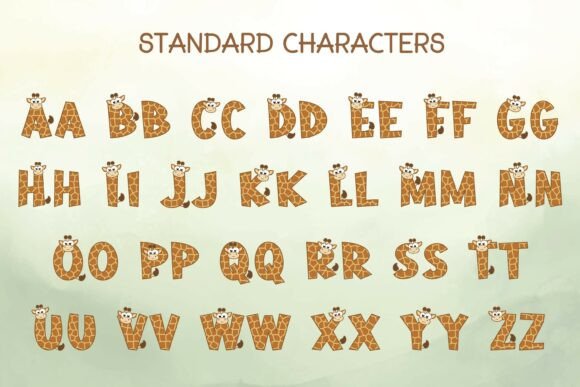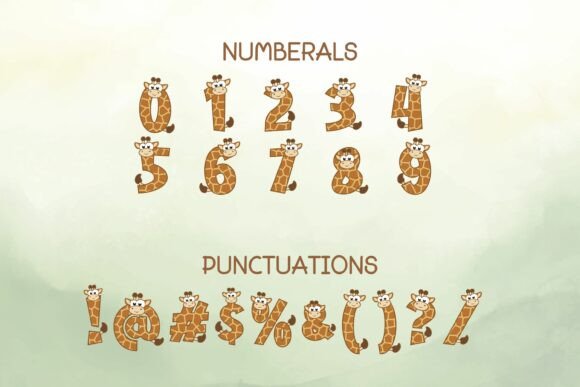
Discover the Delightful World of Giraffe Print Font
What Makes Giraffe Print Font So Special?
Giraffe Print is a fun and adorable color font that brings a playful safari vibe to your creative projects. Each letter features a cute giraffe pattern with charming little giraffe faces and tails integrated into the characters, making it perfect for kids-themed designs, nursery decorations, birthday invitations, classroom materials, and more. This isn’t just a typeface; it’s a full-color experience where every letter is dressed in a classic giraffe hide pattern, complete with adorable, peeking giraffe faces.
Honest Review: The Good and the Great
Here’s what I love about Giraffe Print Font:
- ✨ Unique and playful design: The giraffe pattern is intricately designed, making each letter a delightful visual treat.
- ✅ Easy to read: Despite the busy pattern, the chunky, bold letterforms ensure that the text remains impactful and easy to read.
- ✅ Versatile: Suitable for a wide range of projects, from kids’ designs and educational materials to zoo-themed branding.
- ✅ Color font: The SVG/Color font format maintains its intricate textures and warm, earthy tones perfectly, making it an instant favorite for many designers.
Now, let’s talk about a couple of quirks:
- ⚠️ Glyphs and OpenType features: Some platforms might not fully support OpenType features or glyphs, which could limit the font’s full potential.
- 🤔 Color consistency: Depending on the software and platform you’re using, you might encounter some inconsistencies in color rendering.
The Story Behind Giraffe Print Font
The Giraffe Print Font was designed with a clear vision: to bring a playful and charming feel to kids’ designs and educational materials. The designer aimed to capture the whimsical nature of giraffes, making the font not just a typeface but a full-color experience. Inspired by safari adventures and the beauty of African wildlife, Giraffe Print Font was crafted to make your designs stand out with a unique and delightful aesthetic.
| Font Name | Giraffe Print Font |
| Author | Adalin Digital |